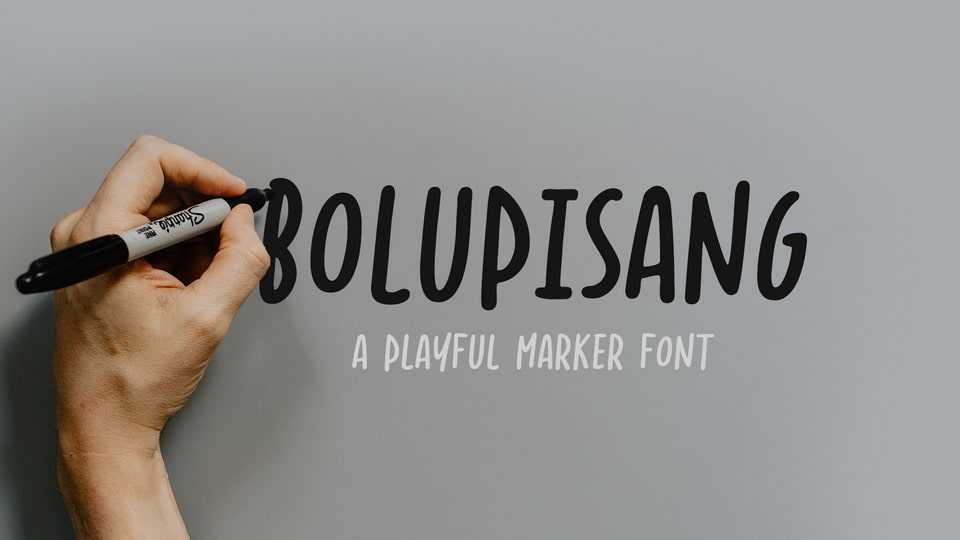
Download Bolupisang font, a charming handwritten typeface inspired by playful marker style. Bolupisang is your go-to font for all things fun and creative.
Designer: Locomotype